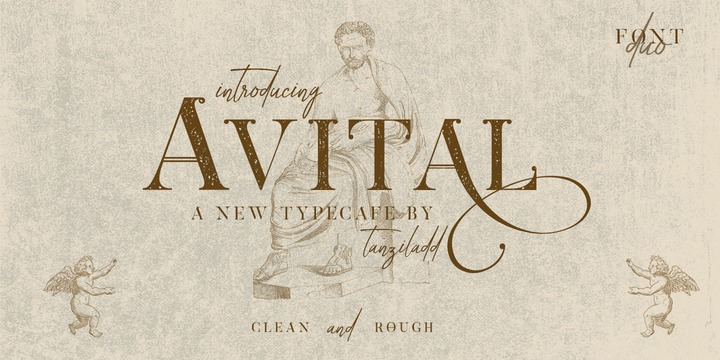
Avital Font
Avital Font is perfect for wellness center branding, life coaching materials, health transformation campaigns, vitality-focused marketing, energetic fitness communications, life enhancement programs, rejuvenation spa signage, health empowerment presentations, vibrant lifestyle brands, and authentic vitality-centered communications.
What makes Avital Font so exciting is its powerful embodiment of life force energy and vital wellness that captures the essential spirit of vibrant living and the transformative power of health empowerment through energetically designed typography. This vitally inspired typeface features dynamic letterforms with life-energy proportions and vitality-influenced character variations that immediately convey strength, energy, and the life-enhancing power of optimal wellness. The font's energetic construction and vitality-focused aesthetic create an instant sense of health empowerment and life force activation, making it ideal for projects that need to communicate vital energy, health transformation, and the life-changing power of wellness empowerment to audiences seeking authentic vitality experiences and meaningful health enhancement.
The Avital Font family typically includes multiple energetic weights and vital styles, often featuring light through bold variations along with dynamically flowing italic versions and wellness-optimized alternatives. Vitality font collections frequently offer extensive character sets including health symbols, energy indicators, and wellness elements that enhance the authentic vitality aesthetic and provide designers with comprehensive tools for creating genuinely empowering and healthily inspiring communications.
The vital nature of Avital Font makes it particularly effective for targeting demographics that prioritize health optimization and life energy enhancement in their wellness and lifestyle choices. Health marketers and wellness coaches will find this font especially valuable for materials that must establish immediate vitality credibility and connect with audiences seeking authentic energy experiences and meaningful health transformation.
What sets Avital Font apart is its ability to convey life force energy while maintaining the professionalism necessary for effective health and wellness communication. This balanced characteristic makes it suitable for both dynamic wellness applications and professional health contexts where projecting vitality and maintaining credible health expertise must work together harmoniously.
Professional designers recognize that Avital Font brings invaluable wellness credibility to projects across industries including health coaching, fitness training, wellness services, and vitality enhancement programs. Its energetic character and vital appeal make it essential for organizations whose mission centers on promoting life energy, advancing health empowerment, and creating meaningful connections between vital wellness and life transformation.
The systematically crafted vitality authenticity of Avital Font ensures consistent energy messaging across all wellness-focused communication applications while honoring the fundamental principles of life force enhancement and health empowerment in contemporary vitality typography.